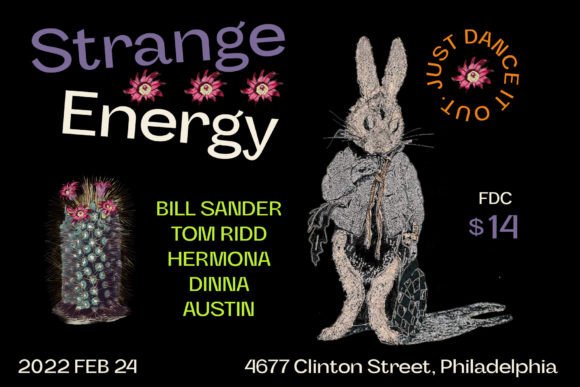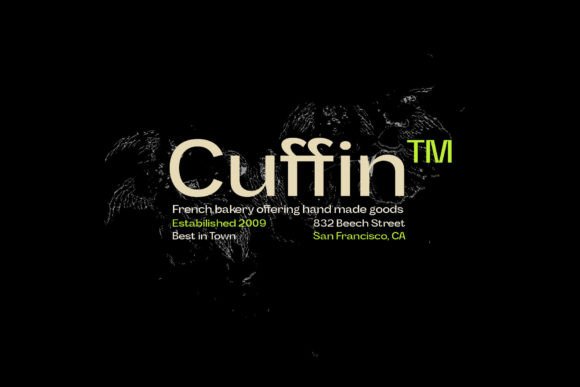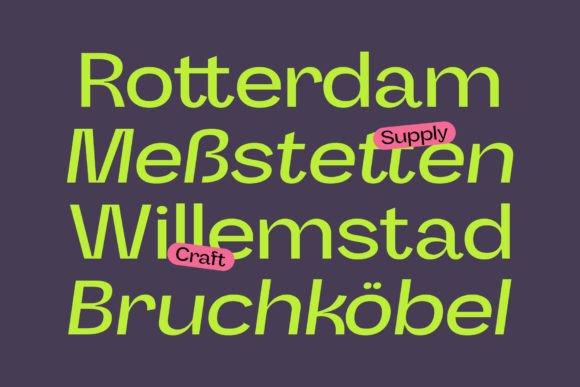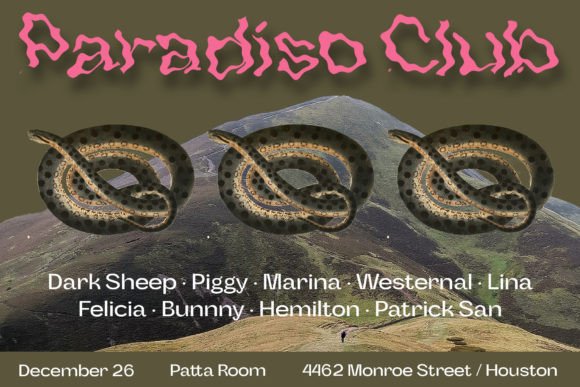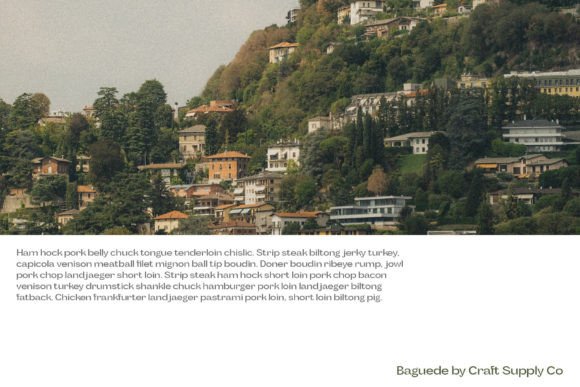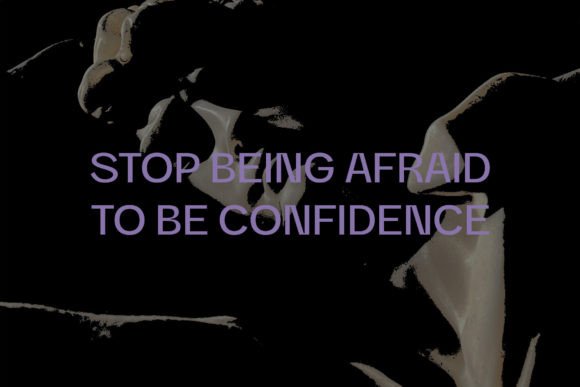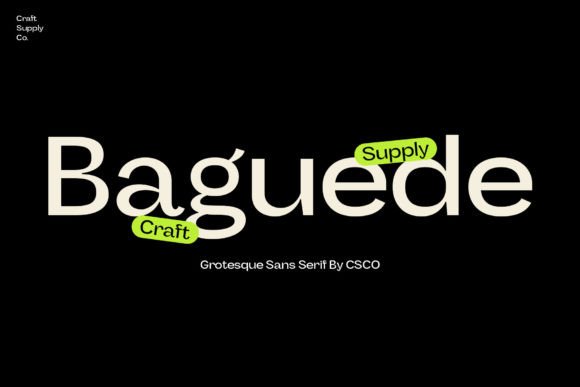
Introducing Baguede: The Ultimate Post-Modern Grotesque Typeface
In the world of typography, a new font has emerged that’s making waves with its unique blend of style and sophistication. Meet Baguede, a post-modern grotesque typeface that’s designed to elevate your designs with its fancy and catchy touch. This versatile sans serif font is perfect for a wide range of applications, from branding and advertising to packaging and digital media.
The Birth of Baguede
Baguede is the brainchild of a team of skilled typographers and designers who sought to create a font that would push the boundaries of traditional sans serif typefaces. With its roots in post-modern design, Baguede combines clean lines, geometric shapes, and a dash of elegance to create a truly unique visual identity.
Key Features of Baguede
So, what sets Baguede apart from other fonts? Here are some of its key features:
- Post-modern grotesque style: Baguede boasts a bold, edgy aesthetic that’s perfect for designers looking to add a touch of sophistication to their work.
- Fancy and catchy touch: With its subtle flair and refined lines, Baguede adds a level of elegance to any design.
- Versatility: This font is incredibly versatile, making it suitable for a wide range of applications, from headlines and titles to body text and captions.
- Sans serif design: Baguede’s clean, sans serif design ensures that your text remains clear and legible, even at small sizes.
Applications of Baguede
So, where can you use Baguede? The possibilities are endless! Here are some ideas to get you started:
- Branding and logos: Baguede’s unique style makes it perfect for creating memorable brand identities.
- Advertising and marketing: Use Baguede to create eye-catching headlines and titles that grab attention.
- Packaging design: Add a touch of sophistication to your product packaging with Baguede’s elegant design.
- Digital media: Baguede is perfect for digital media, including social media graphics, website headers, and more.
Why Choose Baguede?
With so many fonts to choose from, why should you choose Baguede? Here are just a few reasons:
- Unique style: Baguede’s post-modern grotesque style sets it apart from other fonts.
- High-quality design: Baguede is designed with precision and attention to detail, ensuring a high-quality finish.
- Versatility: This font can be used in a wide range of applications, making it a great addition to any designer’s toolkit.
In conclusion, Baguede is a game-changing post-modern grotesque typeface that’s sure to elevate your designs to the next level. With its unique blend of style, sophistication, and versatility, Baguede is the perfect choice for designers and crafters looking to add a touch of elegance to their work. So why wait? Try Baguede today and discover the power of this incredible font for yourself!